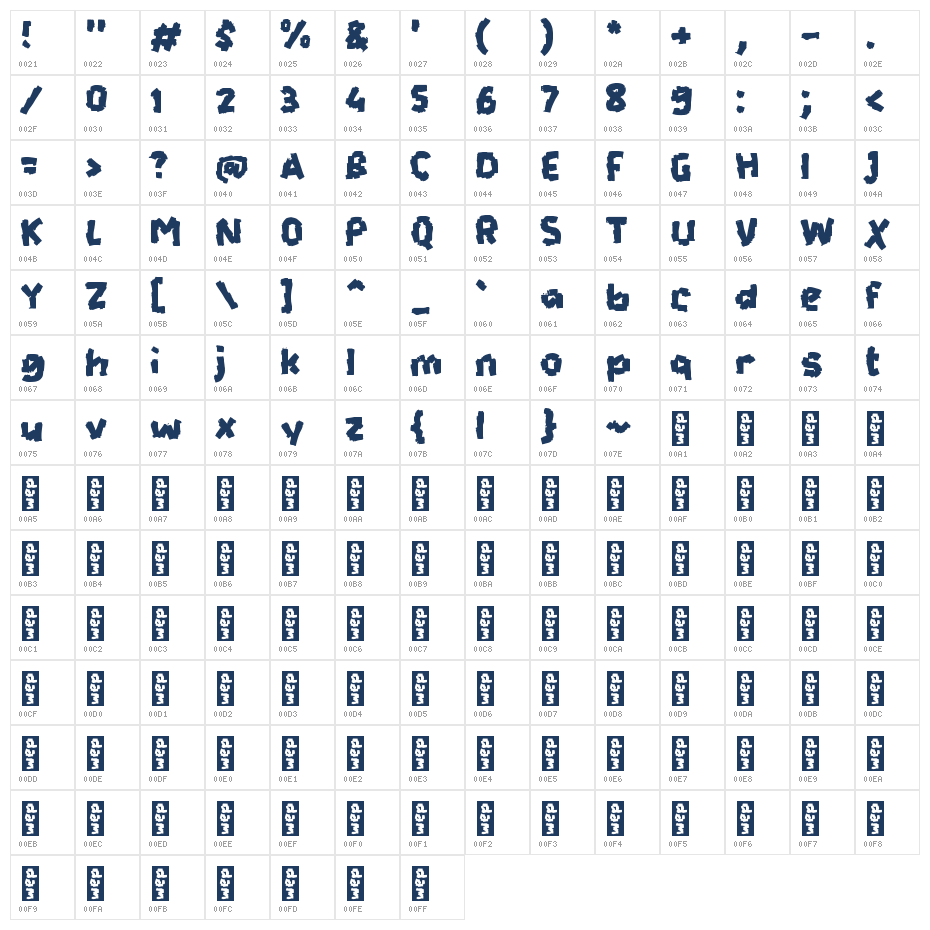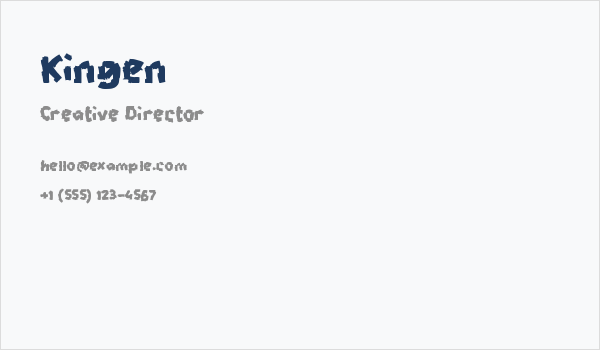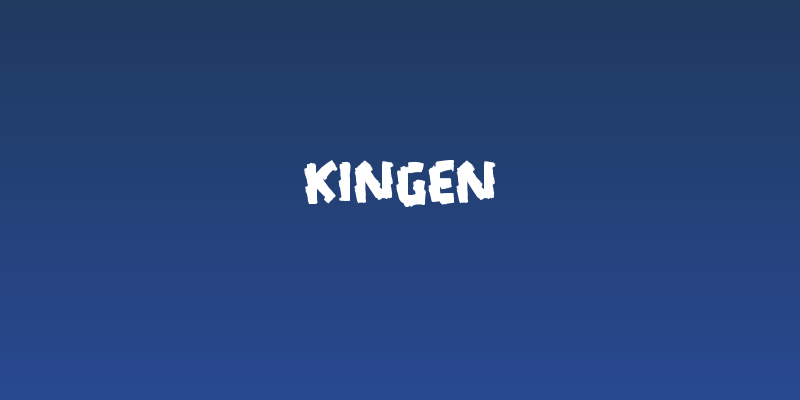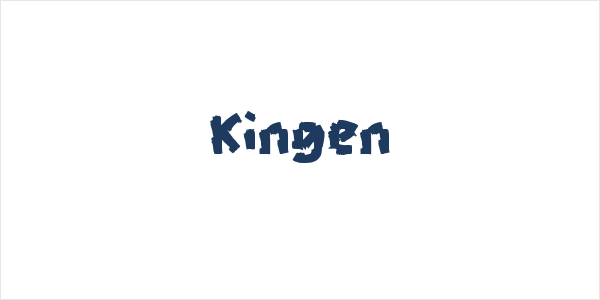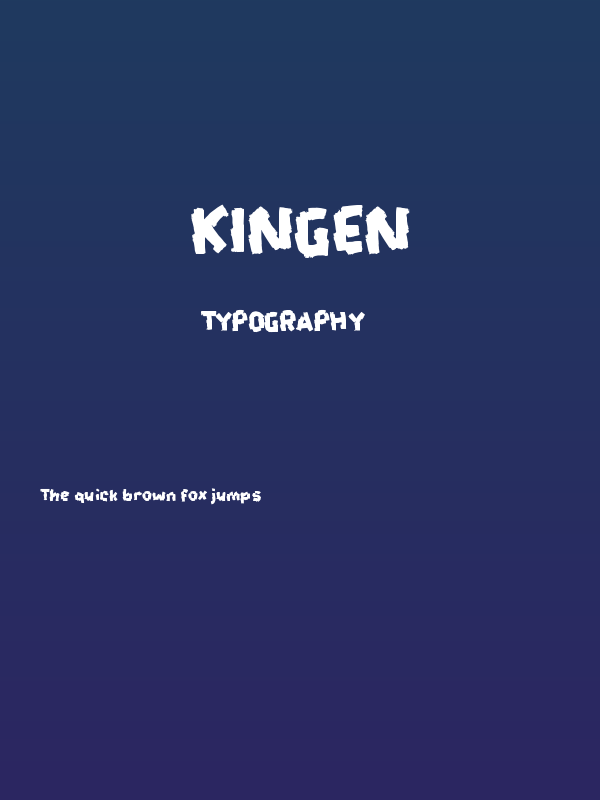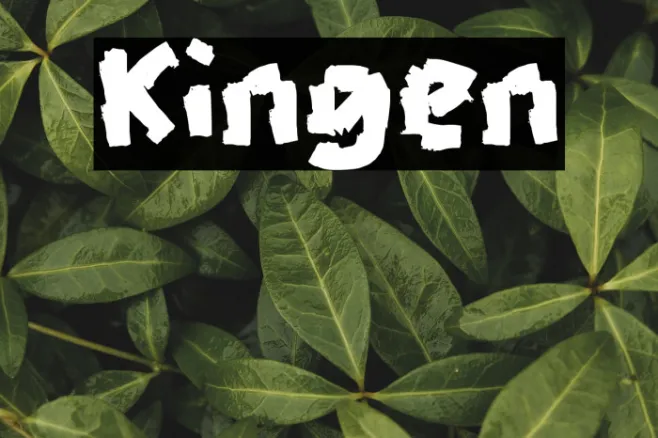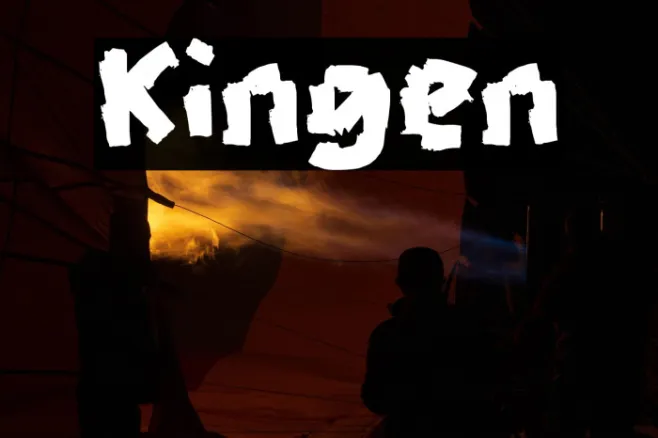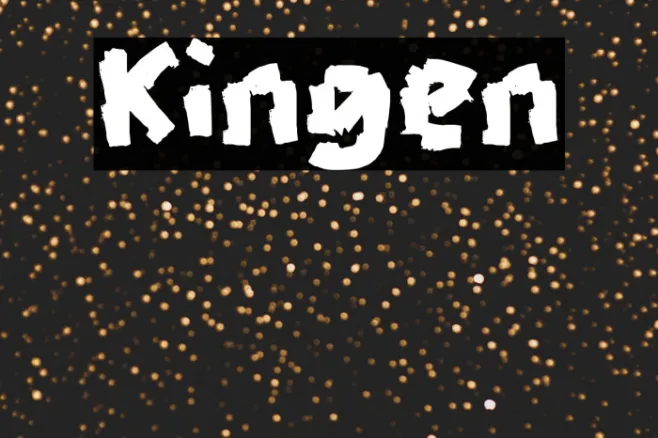
Kingen Font
Kingen Description
A bold, textured, and irregular display font with a rough, hand-drawn appearance, suitable for attention-grabbing designs.
| Overall Style | Grunge, Hand-drawn, Edgy |
| Use Case | Headlines, Posters, Logos, Creative Titles |